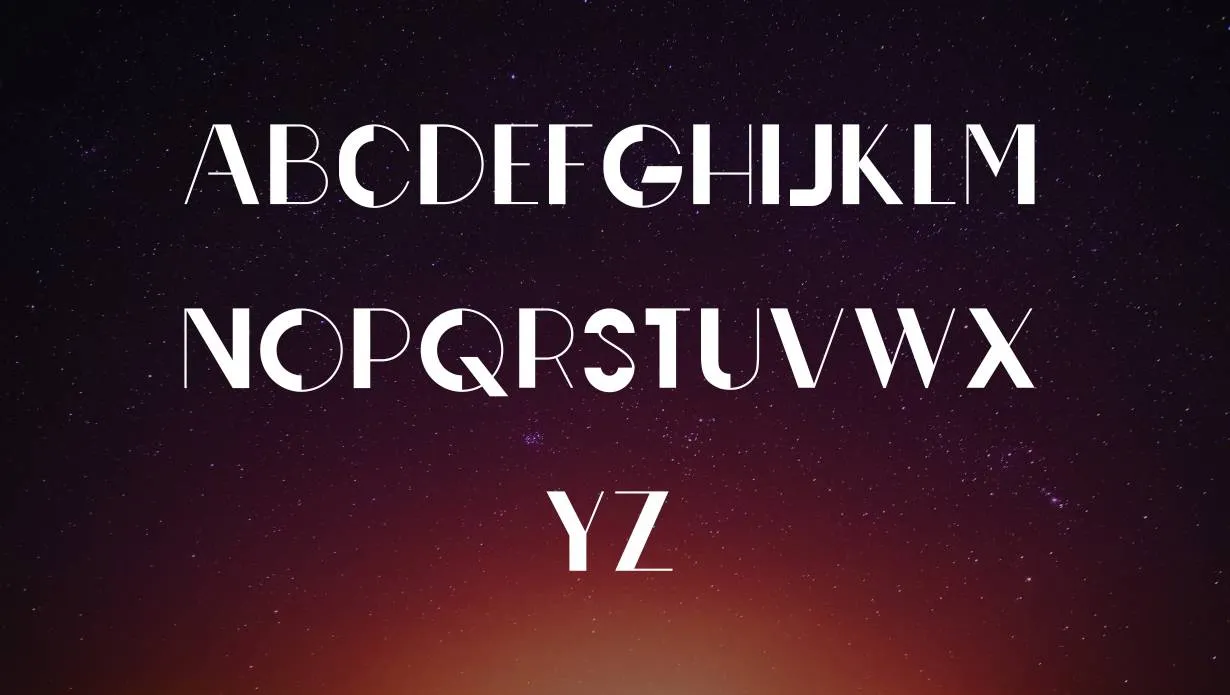
Line Font is all about simplicity and minimalism. Its clean lines and straightforward design make it an excellent choice for modern and streamlined projects.
Whether you’re designing an app interface, a minimalist poster, or a contemporary website, Line Font offers clarity and a clean aesthetic.
Line Font Family
| Name | Line Font |
| Designer | Eko Bimantara |